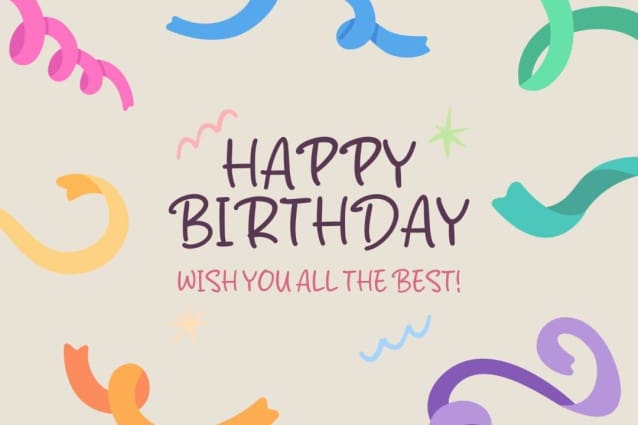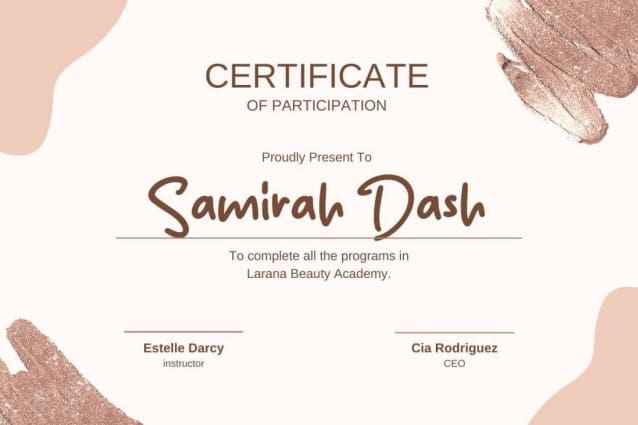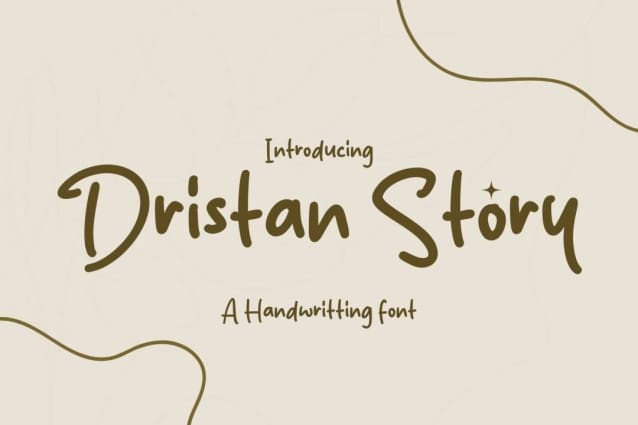
Dristan Story Font
Dristan Story Font is a simple and friendly handwritten font. Its natural and unique style makes it incredibly fitting to a large pool of designs. The only limit is your imagination!